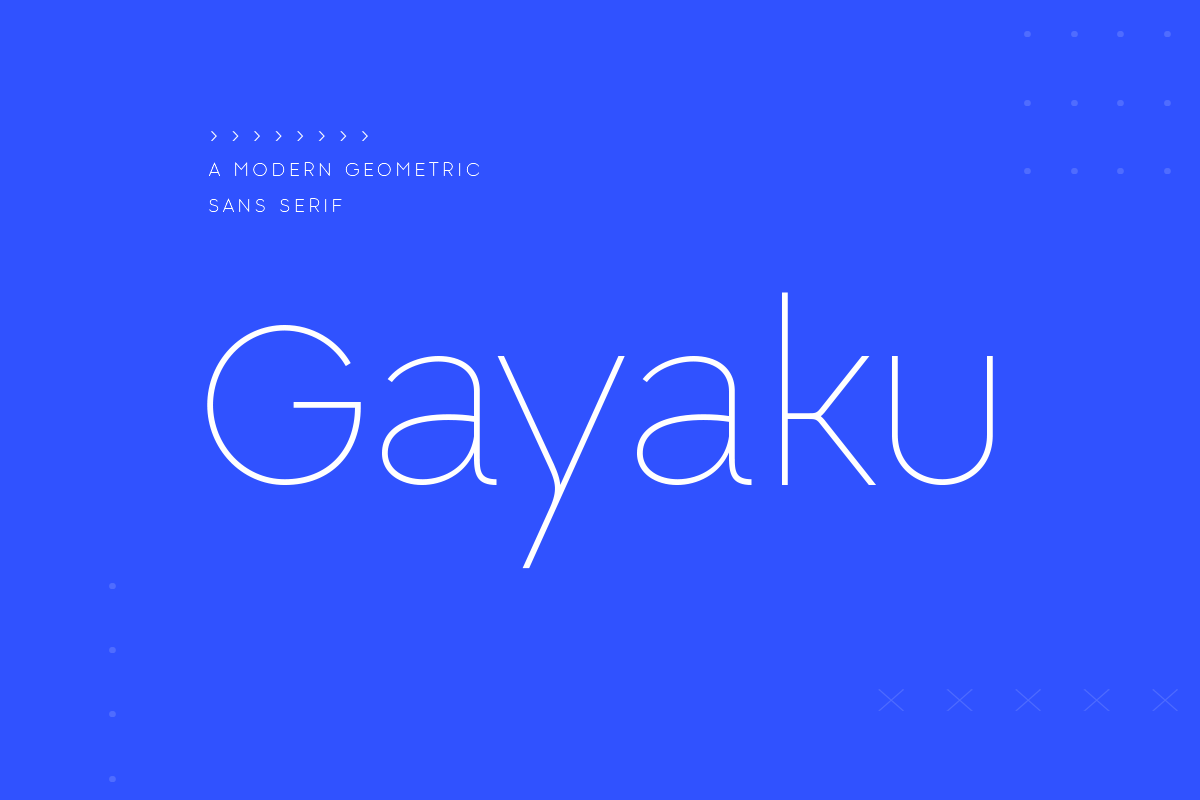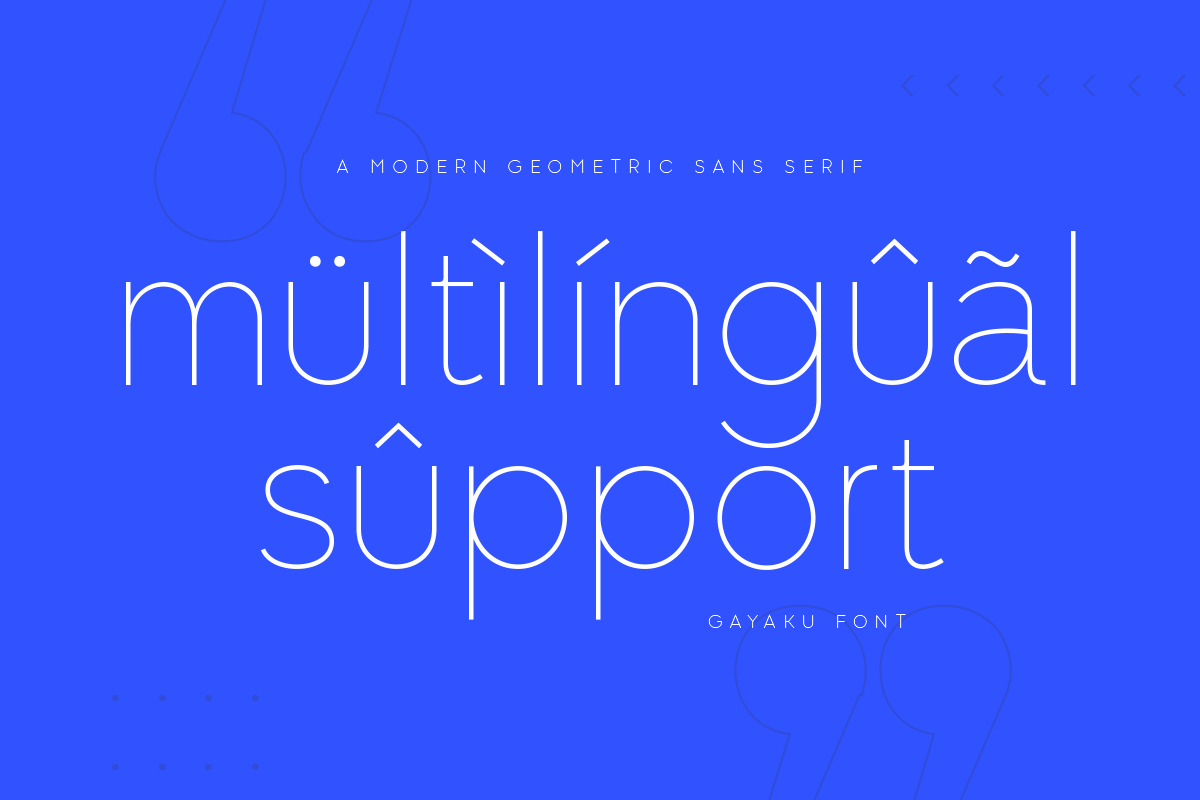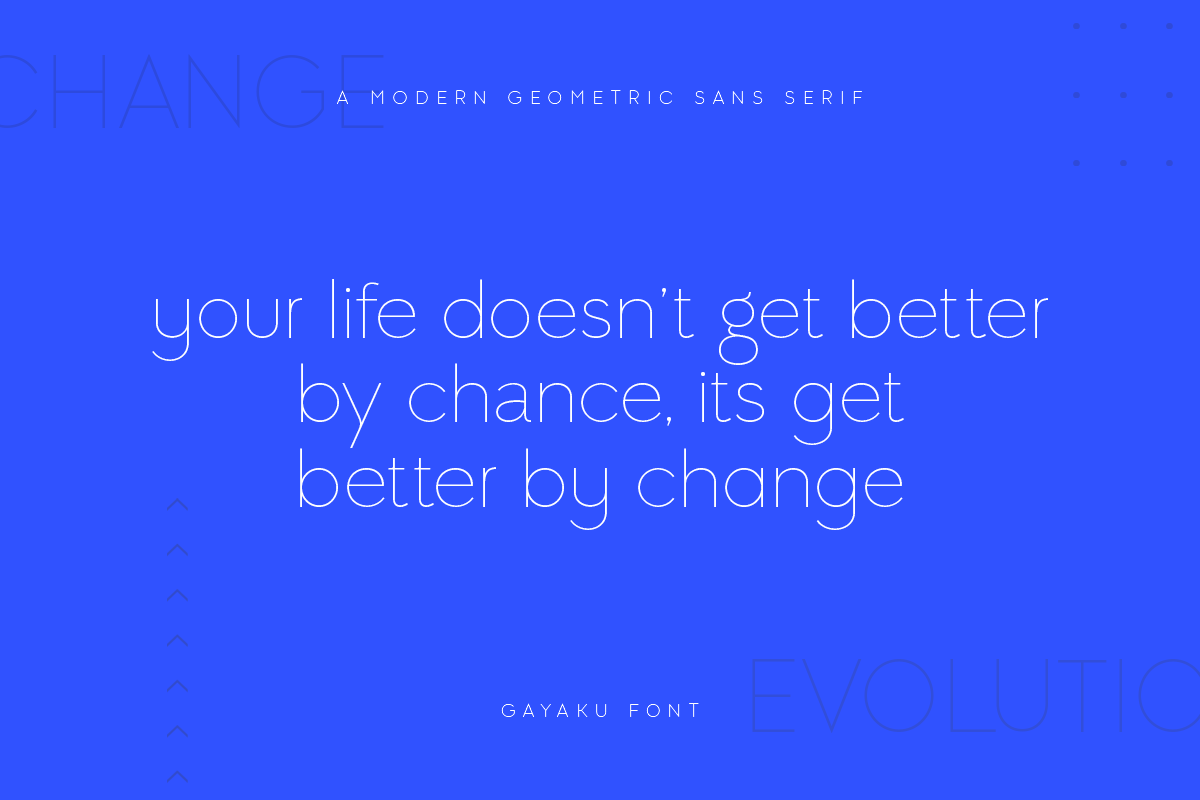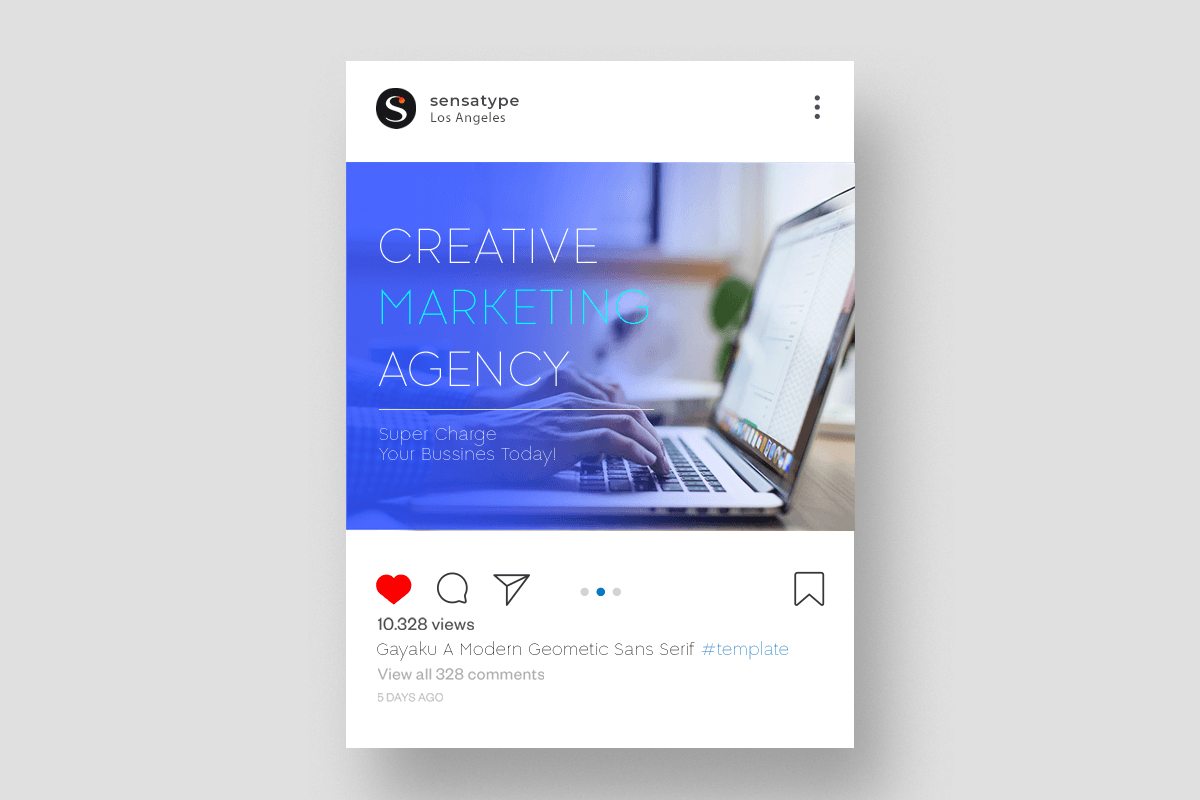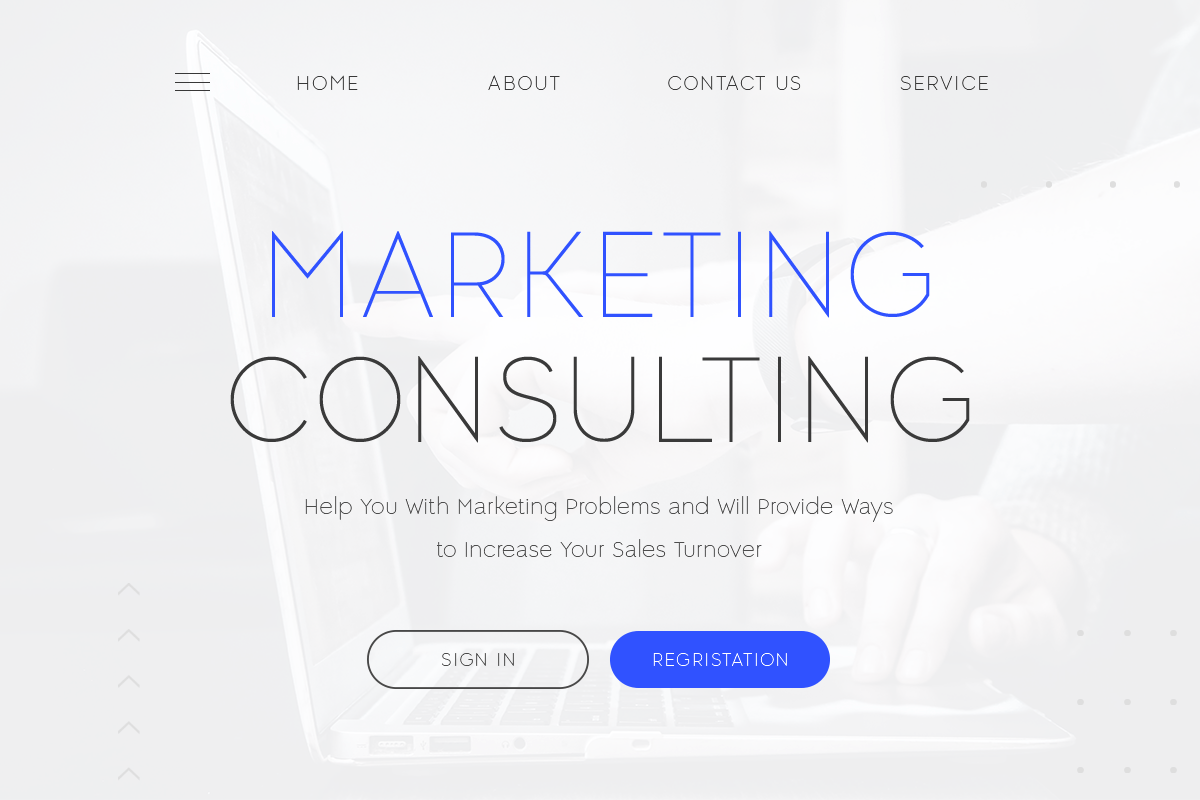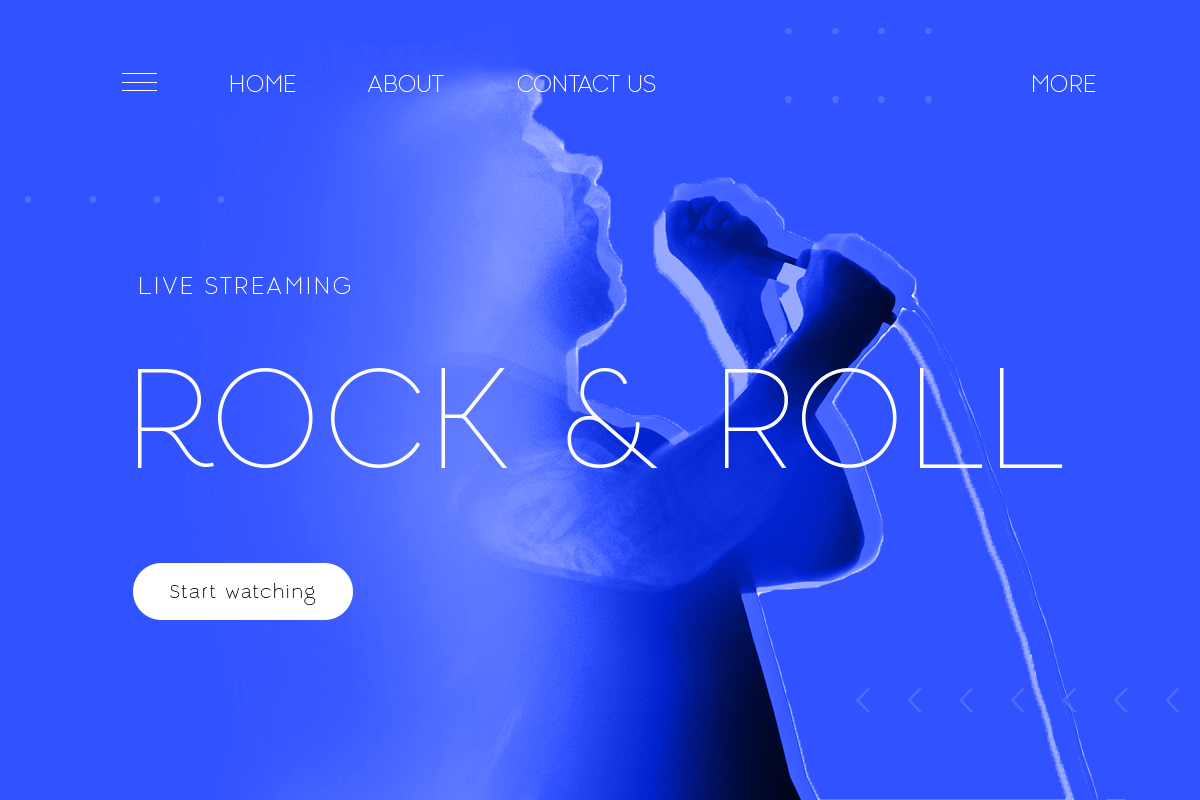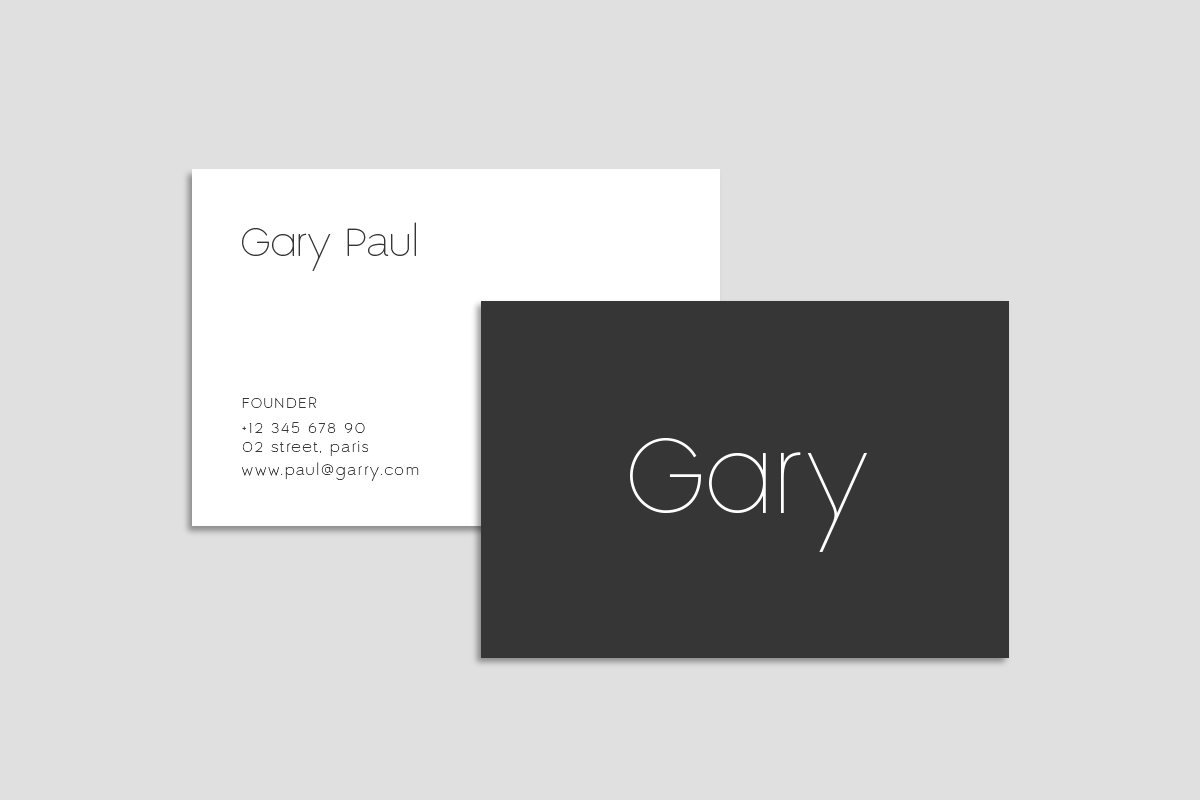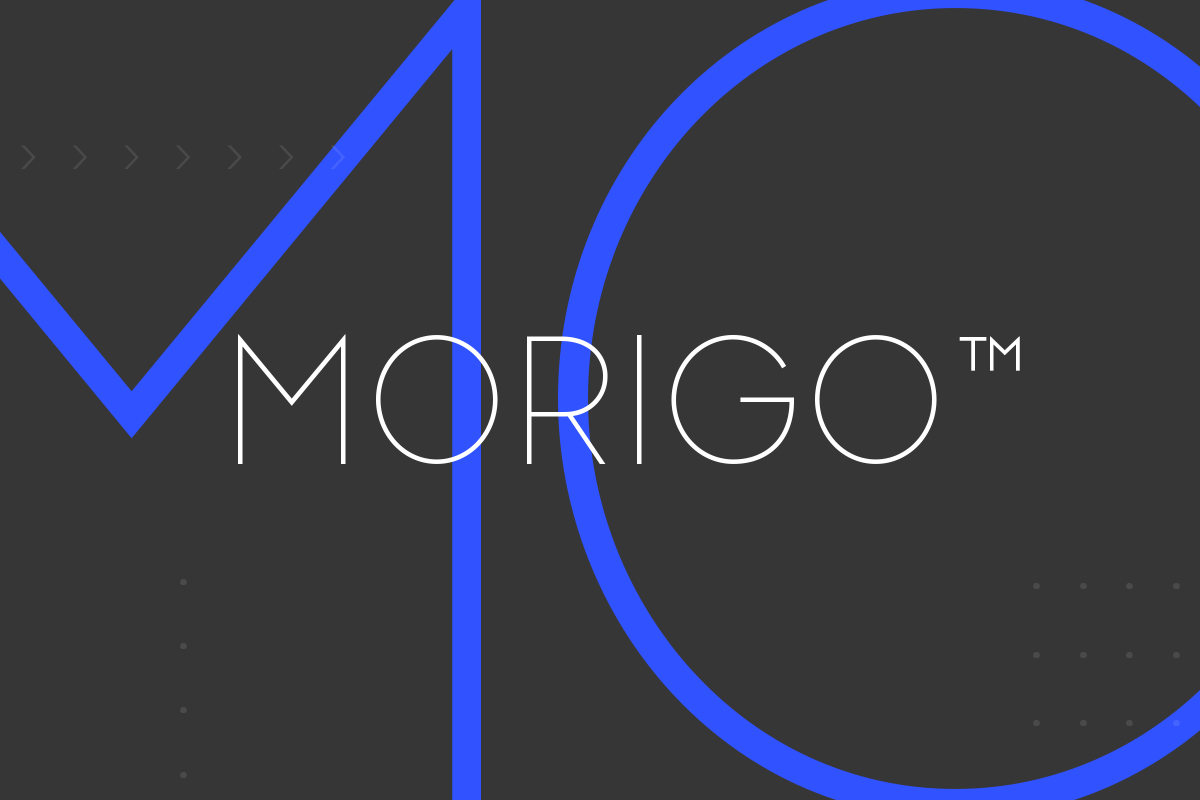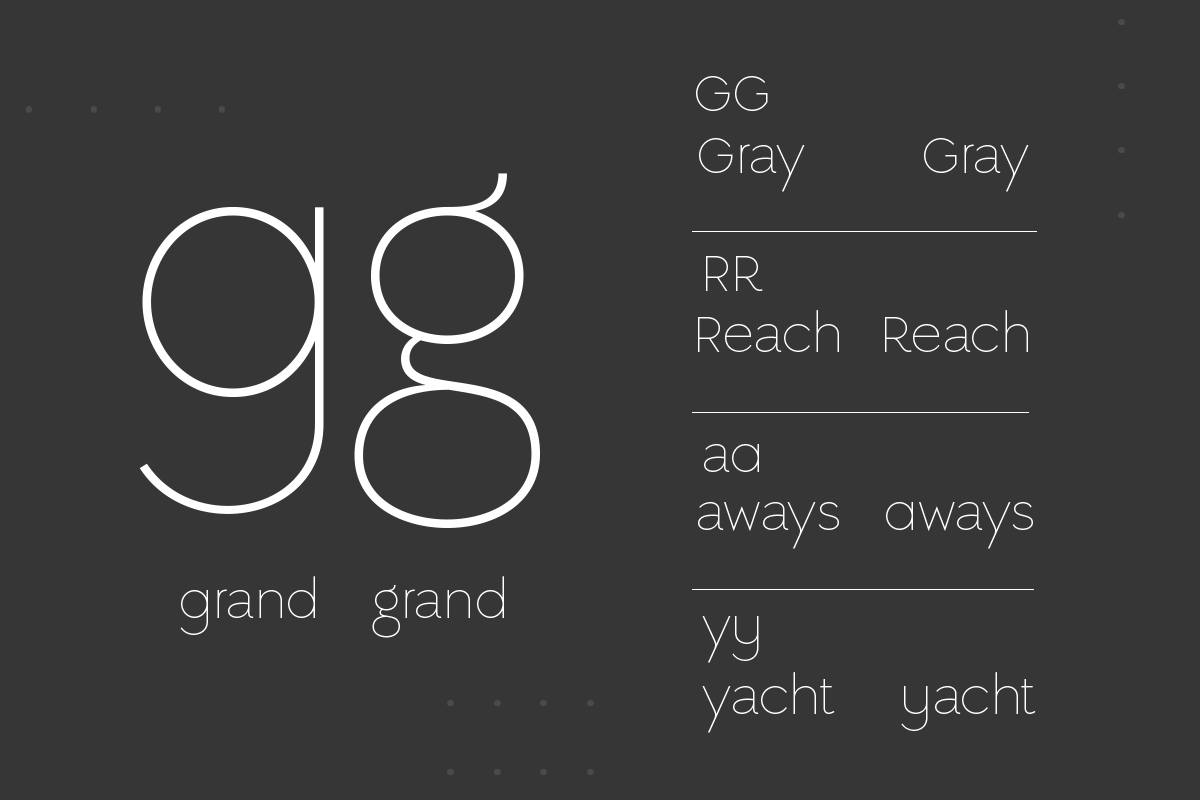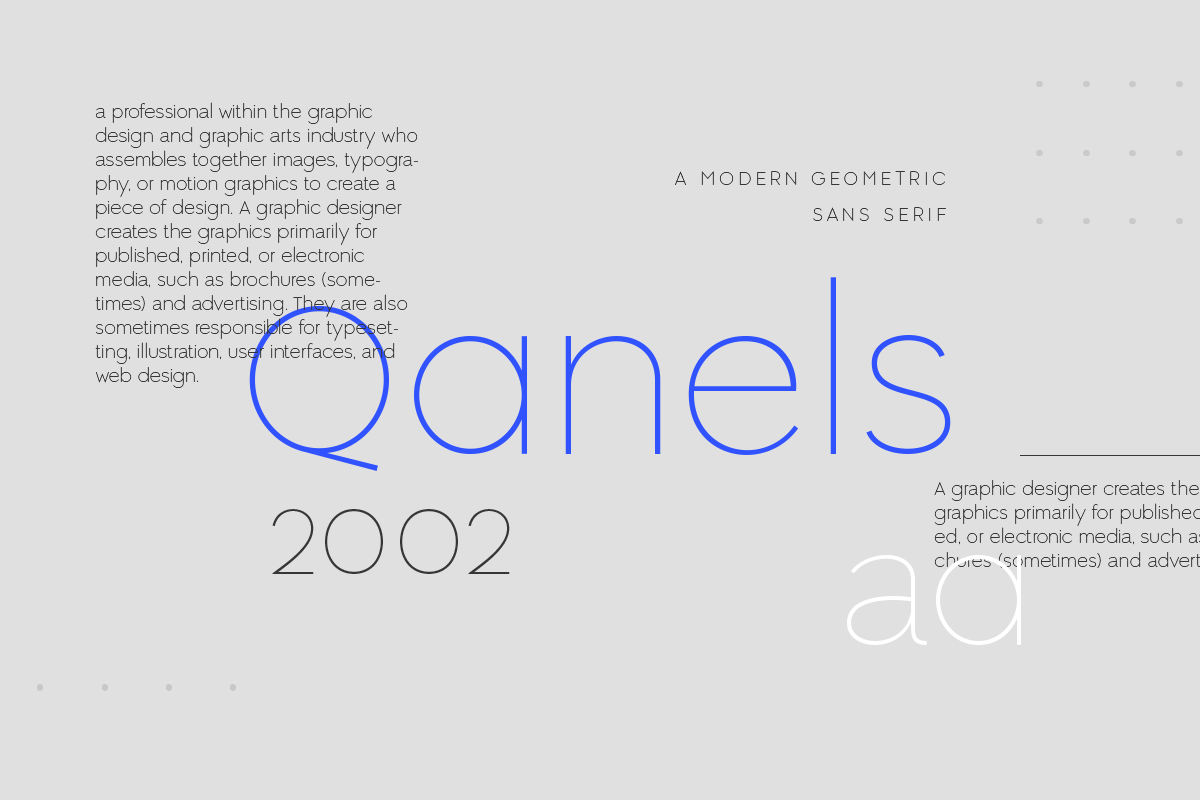
Gayaku
-Modern Sans Serif Font
Gayaku
Gayaku is a Modern Sans Serif
A new Sans serif that we created special for modern feel, unique shape and corporate style that will add value of your brand. It so nice to leverage designer or product owner that need solutions to make their design look more unique and modern.